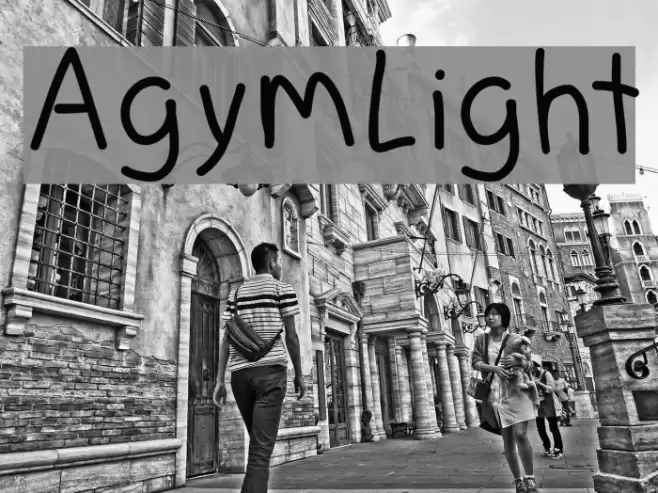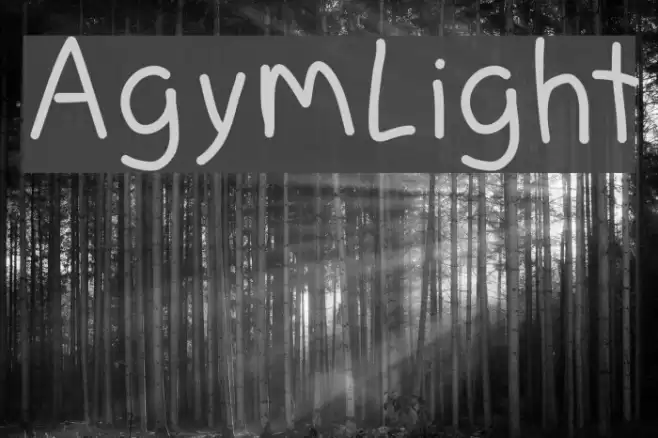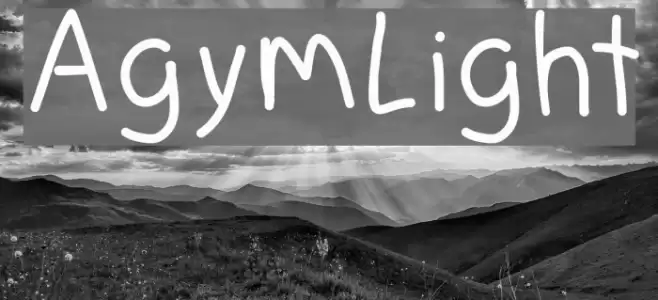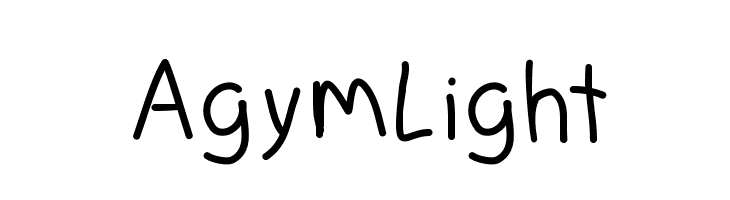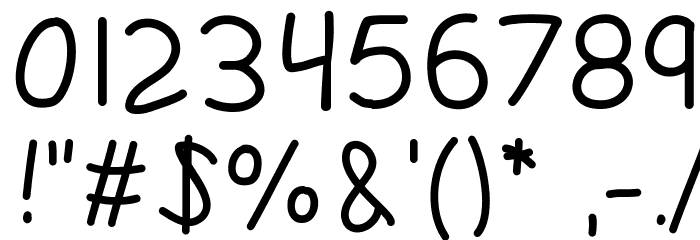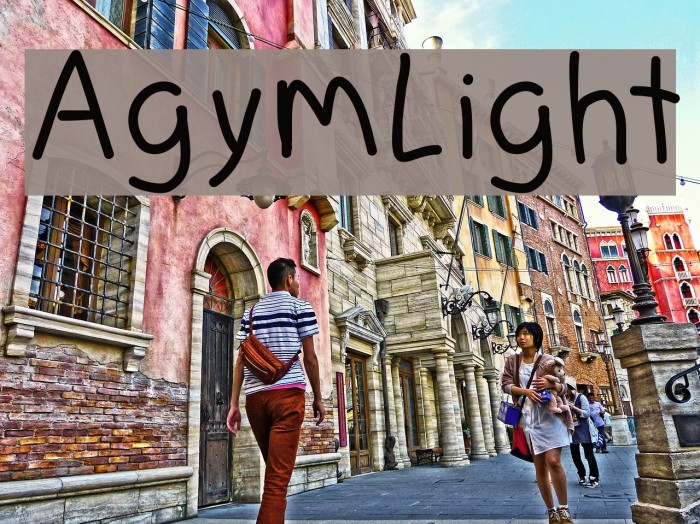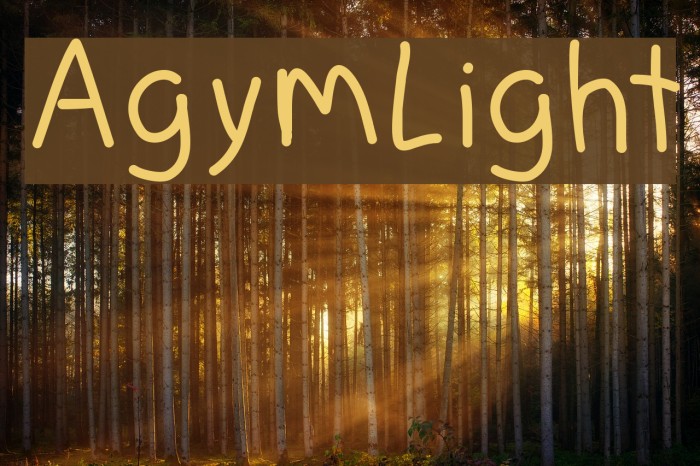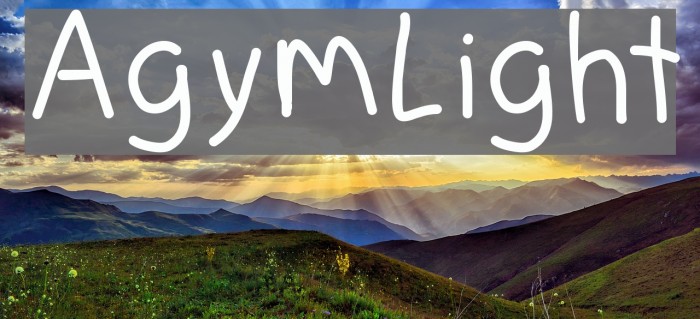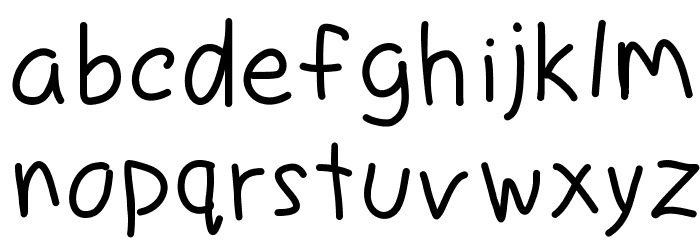
AgymLight Font
AgymLight Description
This font features a playful and informal handwritten style, characterized by its smooth, rounded edges and consistent stroke width. The letters are slightly tilted, giving a casual and friendly appearance. The uppercase and lowercase letters maintain a uniform height, creating a harmonious look. Numbers and special characters follow the same style, ensuring a cohesive design throughout. The font's simplicity and readability make it versatile for various applications, while its unique charm adds personality to any project.
A playful, informal handwritten font with smooth, rounded edges from Uncategorized fonts.
- Proposed Projects: Ideal for children's books, greeting cards, casual branding, and social media graphics.
- Overall Style: Casual
- Use Case: Headlines, Logos, Informal text